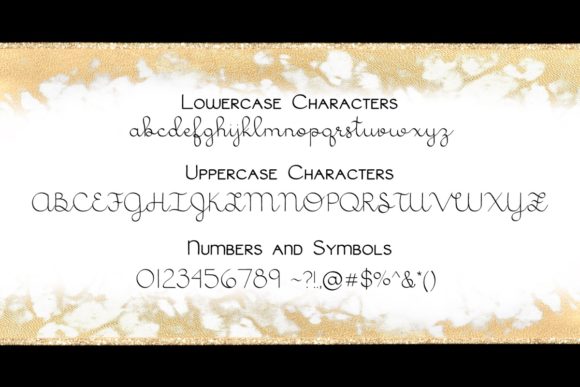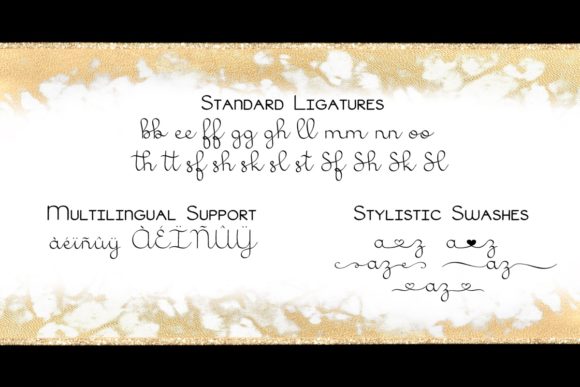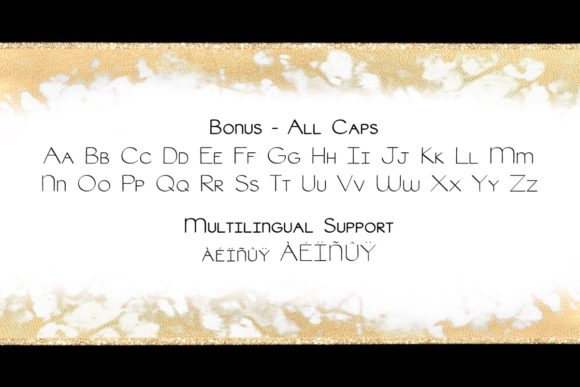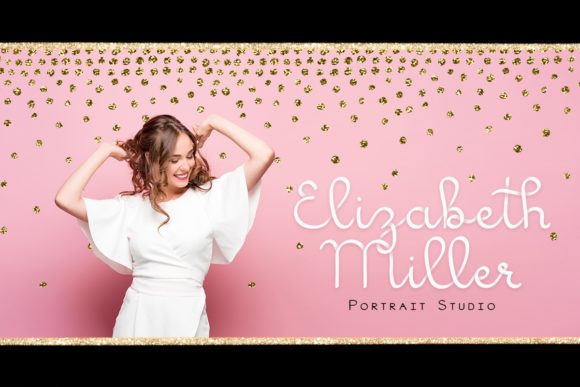
About Stargazer Font
Stargazer is a beautiful light handwritten font with a unique feel and a stunning impact. It will add a luxury spark to any design project that you wish to create! This font is PUA encoded which means you can access all of the amazing glyphs and ligatures with ease!